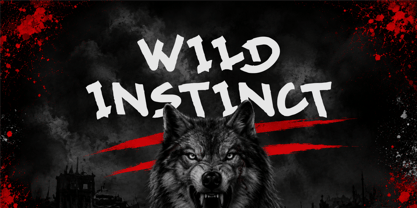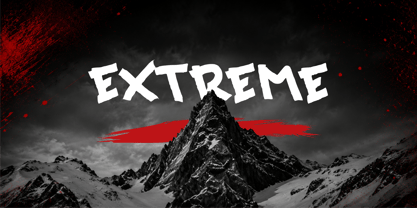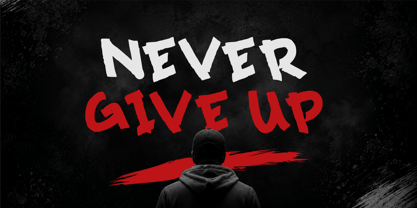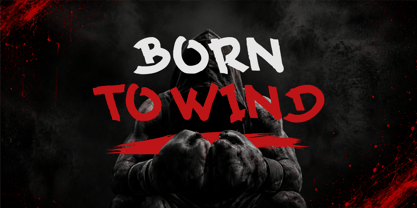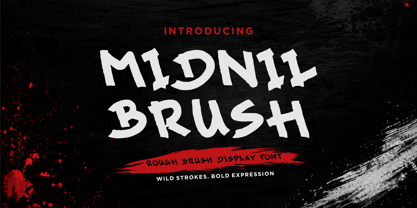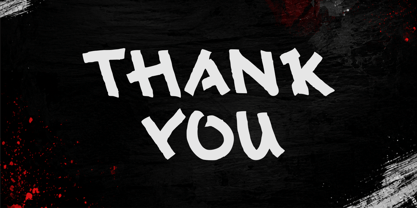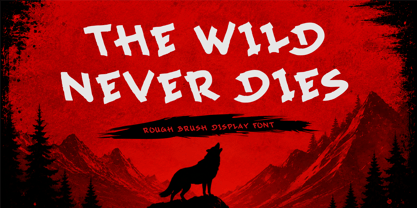
Midnil Brush
by Arif Novianto
The Midnil Brush Font Family was designed by Arif Novianto and published by Arif Novianto. Midnil Brush contains 1 styles. More about this family
Midnil Brush – Wild Stroke Display
Midnil Brush is a bold and expressive rough brush display font designed to bring raw energy, rebellious character, and handmade attitude to your designs. Its irregular strokes, edgy shapes, and textured appearance create a powerful visual impact that stands out instantly.
Perfect for posters, streetwear branding, album covers, music artwork, sports graphics, event posters, merchandise, logos, social media designs, and other creative projects that need a strong and unconventional look.
With its wild brush style and distinctive personality, Midnil Brush is made for designers who want their typography to feel bold, energetic, and unapologetically creative.